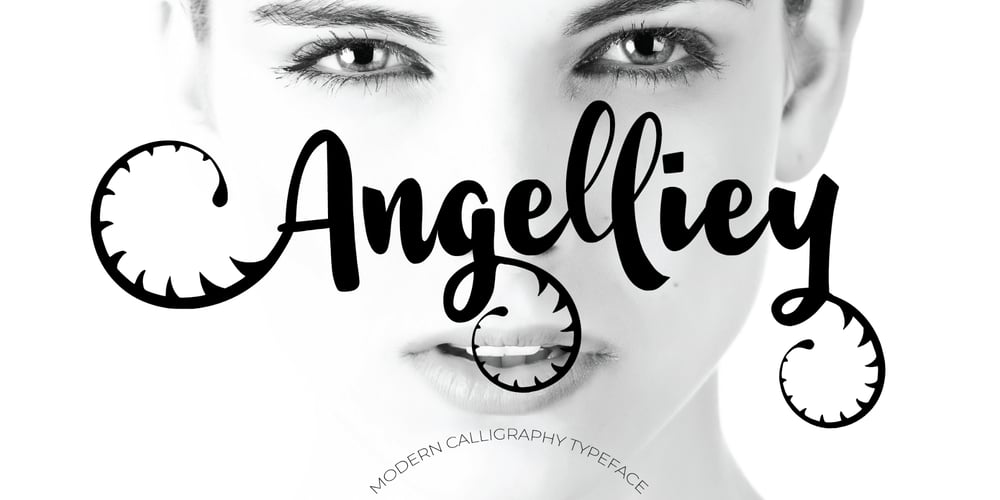
Angelliey Font Family was designed by Muhammad Zaini and published by Cocodesign. Angelliey contains 1 styles and family package options. Angelliey is a beauty script based on a modern calligraphy with natural hand writing look and feel. It can be used as digital signature as well. It has many alternates and ligatures which contain many swashes that you can play with. This type of font perfectly made to be applied especially in logo, and the other various formal forms such as invitations, labels, logos, magazines, books, greeting / wedding cards, packaging, fashion, make up, stationery, novels, labels or any type of advertising purpose.Features : uppercase & lowercase numbers and punctuation multilingual alternates and ligatures PUA encoded We highly recommend using a program that supports OpenType features and Glyphs panels like many of Adobe apps and Corel Draw, so you can see and access all Glyph variations.